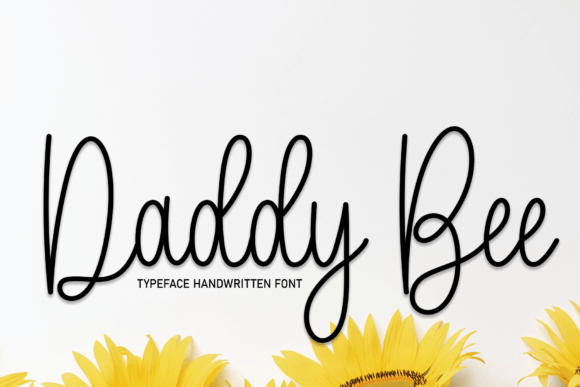
Embark on a whimsical adventure with "Daddy Bee," a captivating handwritten font that exudes sweetness and delicate charm. Inspired by the innocent joy and authenticity of childhood, this font is a masterpiece designed to bring life to your creative projects. Whether you're crafting invitations for a special occasion, designing posters for a school event, or creating personalized gifts, "Daddy Bee" is your perfect companion.
Immerse yourself in the world of "Daddy Bee" and discover a symphony of flowing strokes and graceful curves. Each letter dances across the page, carrying with it a sense of playfulness and authenticity. This font is more than just a collection of characters; it's an expression of creativity, a reflection of your unique style. As you type, you'll feel the magic of "Daddy Bee" come alive, transforming your words into works of art.
With its charming personality, "Daddy Bee" is the perfect choice for projects that demand a touch of whimsy and delight. Picture this font adorning invitations to a children's birthday party, adding an extra layer of excitement to the celebration. Imagine it gracing posters for a school play, capturing the essence of youthful enthusiasm. Let "Daddy Bee" dance across personalized gifts, expressing your love and appreciation in a way that's truly unforgettable.
Join the growing community of creatives who have embraced the magic of "Daddy Bee." With its versatility and boundless possibilities, this font is a must-have in your digital toolbox. Download "Daddy Bee" today and let your imagination soar. Experience the joy of creating projects that radiate warmth, charm, and a touch of childhood magic.
Don't settle for ordinary fonts that blend into the background. Choose "Daddy Bee" and let your creations shine with personality and charm. Discover the difference that a truly captivating font can make. Embrace the power of "Daddy Bee" and unlock a world of creative possibilities.